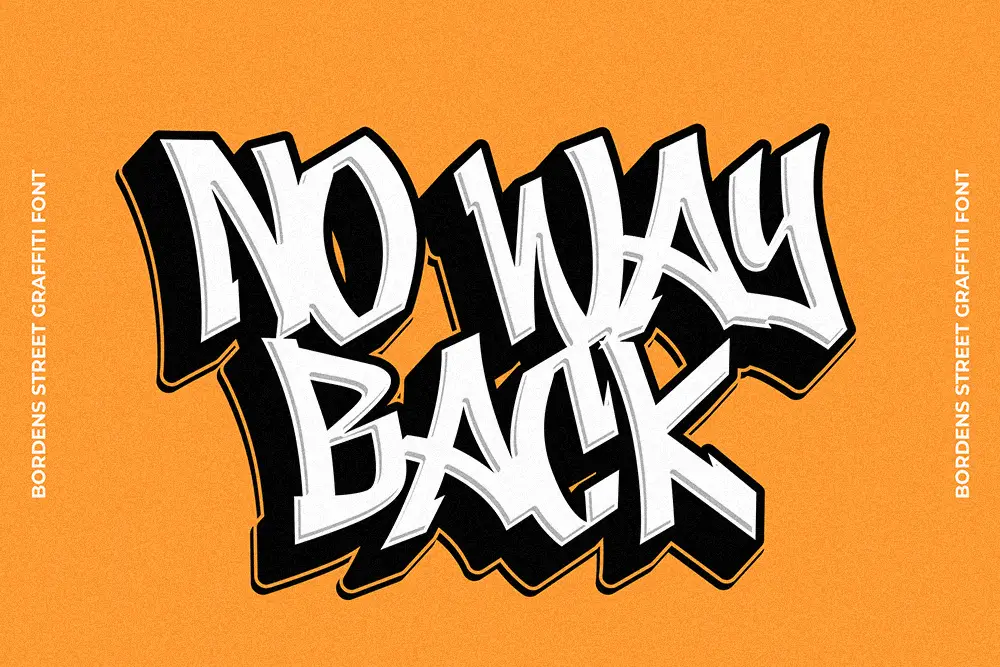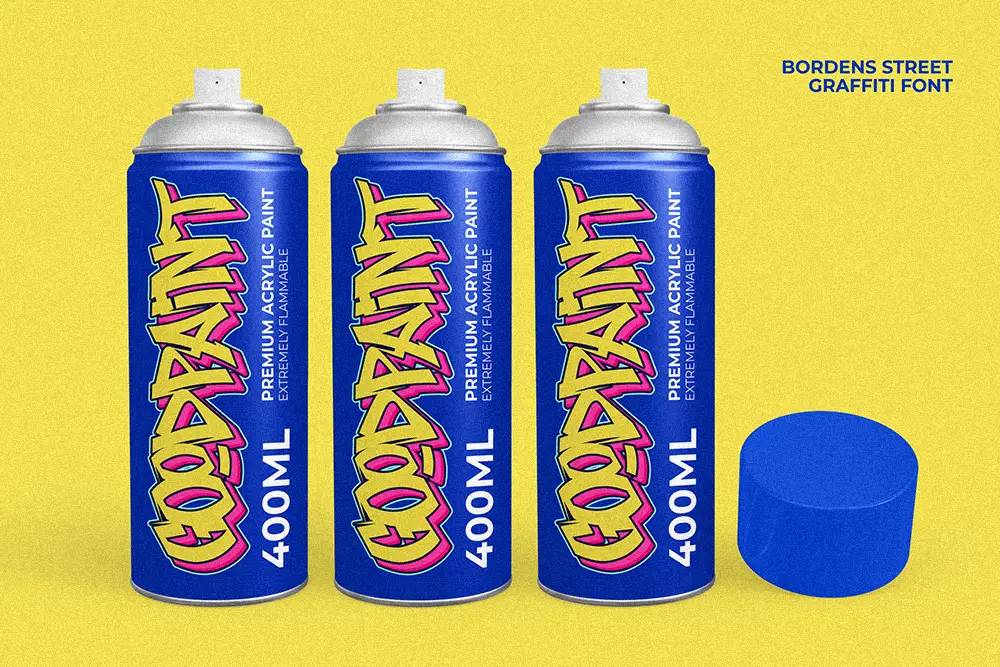
Rebellious Graffiti Font That Breaks All the Rules
Graffiti isn’t just a style — it’s a language. A visual rebellion. A roar against the norm. And Boordens Street captures that energy with every stroke. This rebellious graffiti font is more than a typeface — it’s a weapon of creative expression forged for artists, designers, and rebels who want their message heard loud and clear.
Boordens Street is your ultimate choice for street-style design. Whether you’re crafting event posters, urban branding, or edgy YouTube thumbnails, this graffiti font hits hard. It features uppercase, lowercase, numbers, and symbols, offering creative flexibility without compromise. The letterforms are handcrafted with raw edges, wild energy, and authentic flair — bringing gritty realism to every project.
Designed with versatility in mind, Boordens Street supports multilingual characters, so your art can shout across cultures and continents. Whether you’re tagging digital walls or amplifying urban vibes in your merch mockups, this font carries its voice loud and proud.
Key Features:
- Uppercase & Lowercase Letters for expressive styling
- Numbers & Punctuation for complete typographic coverage
- Authentic Graffiti Aesthetic with natural street flair
- Multilingual Support to communicate worldwide
- Perfect for Branding, Poster Art, Stickers, and Social Media Graphics
Why Designers Love It:
Designers looking for bold personality and gritty street art vibes fall in love with Boordens Street. It’s a font that doesn’t play by the rules — and that’s exactly the point. Whether you’re working on high-energy campaigns, streetwear packaging (without saying the word), or experimental album covers, this font delivers raw visual impact.
Multilingual Support Included
Boordens Street comes fully loaded with multilingual characters to make sure your message cuts across boundaries. From English to European accents, this graffiti typeface brings the revolution to every language.
Use Case Ideas for Boordens Street:
- Album & Mixtape Covers
- Urban Event Flyers
- Poster & Wall Art
- Skateboard Graphics
- YouTube Thumbnails & Titles
- Urban Branding Projects
- Logo Design with Rebellious Attitude
- Custom Stickers & Labels
- Artistic Merchandise
- Experimental Editorials
This Font Is a Street Weapon. Are You Ready to Use It?
Fonts like Boordens Street don’t whisper. They shout. They shake walls. They tell stories in loud colors and louder letters. Whether you’re a graphic designer, a street artist, or an indie brand owner, Boordens Street brings attitude and authenticity that transforms your designs from “safe” to savage.
Don’t just create — ignite a visual revolution.